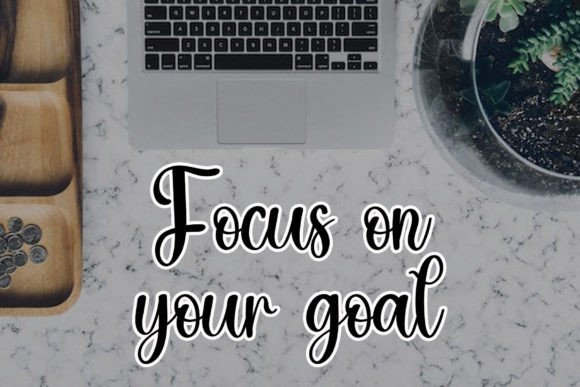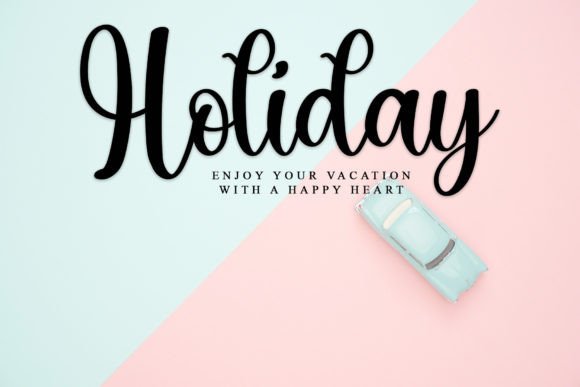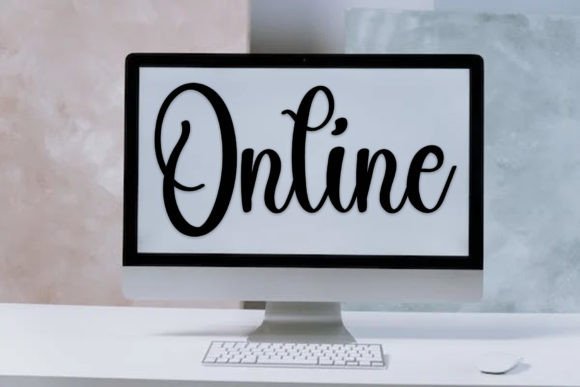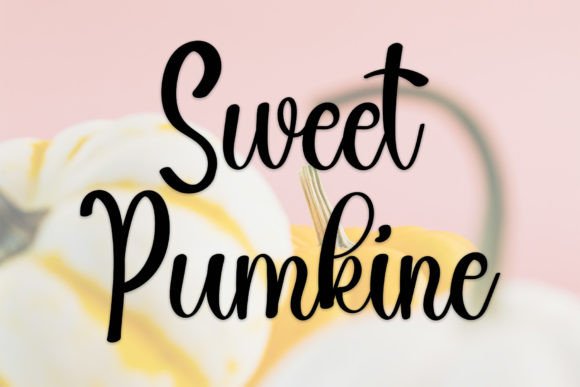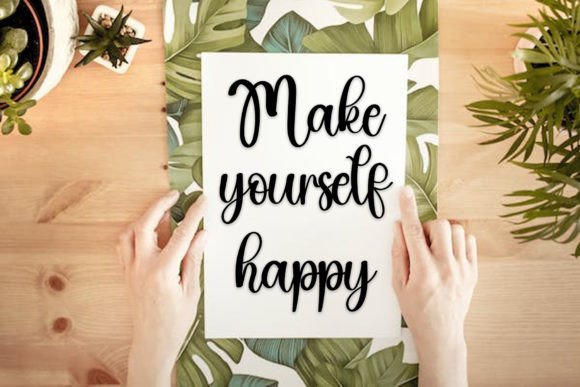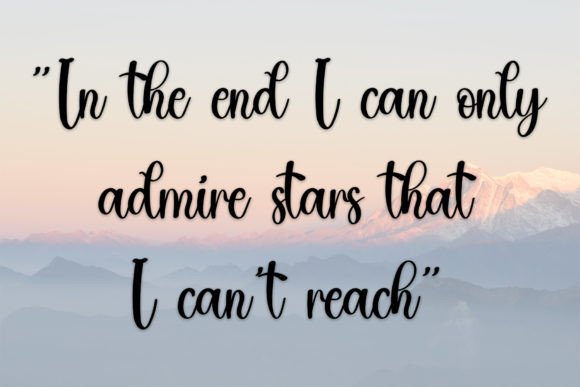
Introducing Building Font: The Cozy Typeface of the Fall Season
As the leaves change colors and the air grows crisper, designers and crafters alike begin to crave a typeface that captures the essence of the fall season. Look no further than Building Font, a delightful and enchanting typeface that brings a sense of coziness and nostalgia to your designs. With its graceful letterforms and warm, earthy tones, Building Font is the perfect addition to your autumn-themed projects, seasonal greetings, and nature-inspired branding.
The Inspiration Behind Building Font
Building Font was designed to evoke the feeling of a crisp fall day, with leaves crunching beneath your feet and the warm glow of sunlight filtering through the trees. The typeface’s creator drew inspiration from the natural world, crafting each letterform to resemble the intricate patterns and shapes found in nature. The result is a font that feels both whimsical and charming, perfect for adding a touch of personality to your designs.
Key Features of Building Font
- Warm and Earthy Tones: Building Font features a range of warm, earthy tones that evoke the feeling of fall. From golden yellows to rich browns, this font’s color palette is sure to add a cozy touch to your designs.
- Graceful Letterforms: Each letterform in Building Font has been carefully crafted to be both elegant and whimsical. The font’s flowing lines and curved shapes create a sense of movement and energy, perfect for capturing the spirit of the fall season.
- Highly Versatile: Building Font is a highly versatile typeface that can be used in a wide range of design applications. Whether you’re creating a seasonal greeting, a nature-inspired brand identity, or simply a cozy blog post, this font is sure to add a touch of charm and personality.
Using Building Font in Your Designs
Building Font is incredibly easy to use, and can be incorporated into your designs in a variety of ways. Here are a few ideas to get you started:
- Autumn-Themed Projects: Use Building Font to add a touch of fall flair to your autumn-themed projects, such as invitations, flyers, and brochures.
- Seasonal Greetings: Create warm and welcoming seasonal greetings, such as Thanksgiving or Halloween cards, using Building Font.
- Nature-Inspired Branding: Use Building Font to create a nature-inspired brand identity that captures the essence of the fall season. Perfect for outdoor gear companies, farmers markets, or eco-friendly brands.
Tips and Tricks for Getting the Most Out of Building Font
To get the most out of Building Font, try experimenting with different design elements and techniques. Here are a few tips and tricks to get you started:
- Pair with Natural Textures: Pair Building Font with natural textures, such as wood grain or leaf patterns, to add an extra layer of depth and interest to your designs.
- Experiment with Color: Don’t be afraid to experiment with different colors and color combinations to find the perfect look for your design. Building Font’s warm and earthy tones are perfect for creating a cozy and inviting atmosphere.
- Add Whimsy with Illustrations: Add a touch of whimsy to your designs with illustrations of fall-themed elements, such as leaves, acorns, or pumpkins.
Building Font is a delightful and enchanting typeface that captures the essence of the fall season. With its graceful letterforms and warm, earthy tones, this font is sure to add a touch of coziness and nostalgia to your designs. Whether you’re a designer, crafter, or simply someone who loves the fall season, Building Font is a must-have addition to your typography collection.